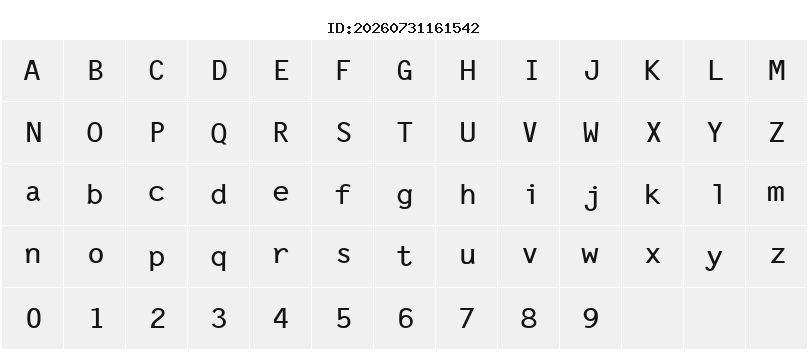
Letter Gothic Evo Preview
• Font Name: Letter Gothic Evo
• Font Style: Monospace
About Letter Gothic Evo.ttf
Letter Gothic Evo.ttf is a modern, elegant sans-serif font designed for ultimate readability and visual harmony. Perfect for branding, headlines, web design, and print materials.